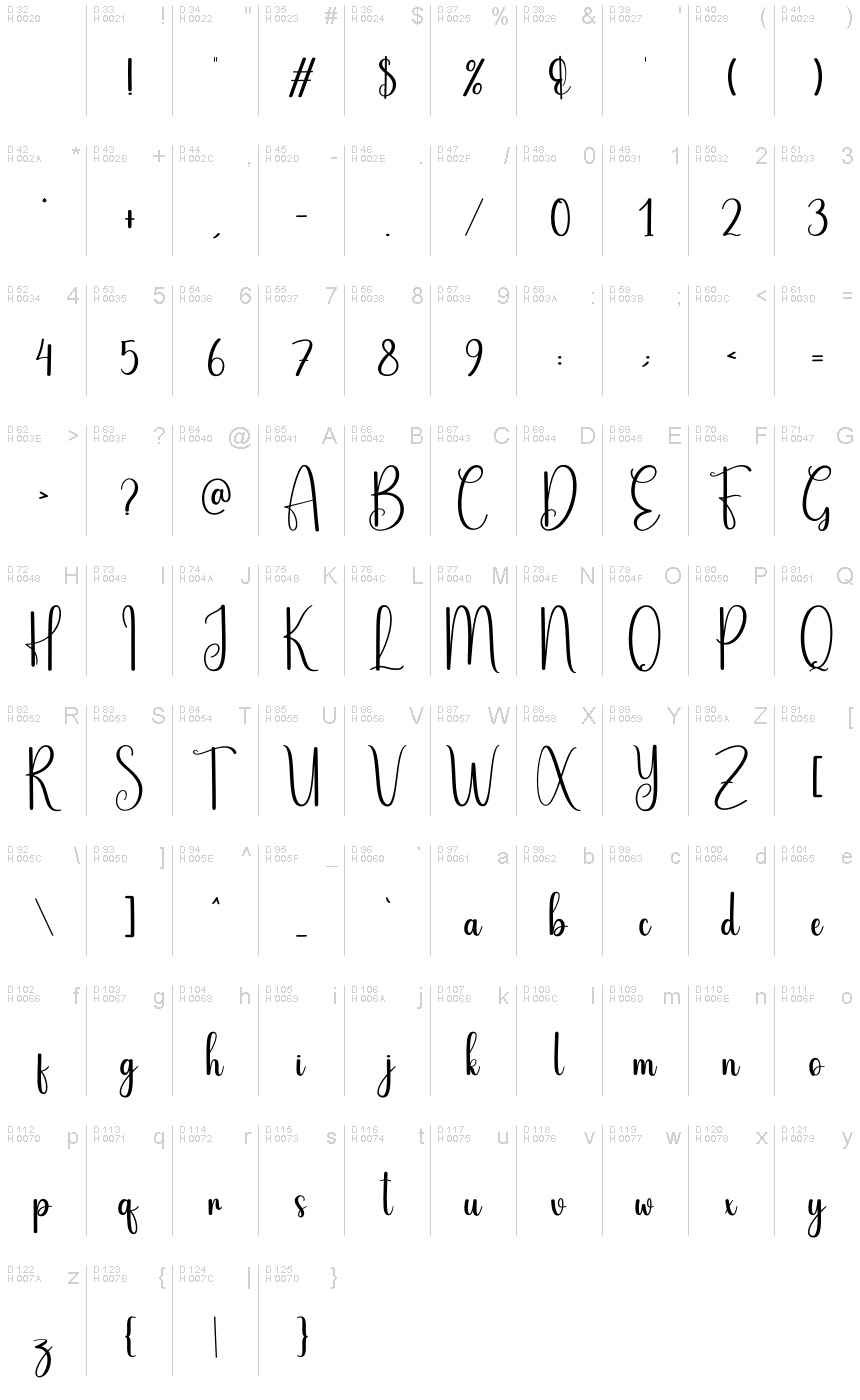
Wind Breeze
Wind Breeze, a creation by Scratchones, brings the charm of personal touch to digital spaces with its handwritten style. The font dances with a fluid grace that seems to echo the gentle sway of leaves in a soft zephyr, each stroke carrying an organic variability as if penned by an artist's hand in a moment of inspiration. Its elegant elongations and playful loops speak of creativity and warmth, inviting readers into a world where each letter is crafted with care.
Perfect for projects that require an intimate, bespoke feel—such as wedding invitations, greeting cards, or branding for artisanal products—Wind Breeze exudes sophistication while maintaining a down-to-earth approachability. Its distinctive flair would also lend itself beautifully to literary covers or editorial titles, where its individual character can truly shine.